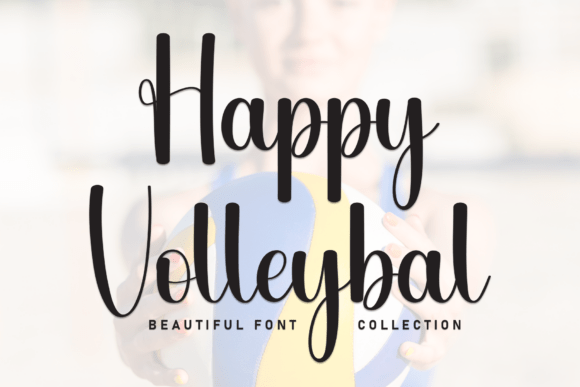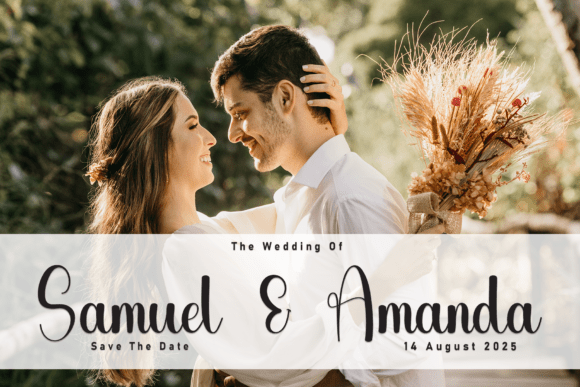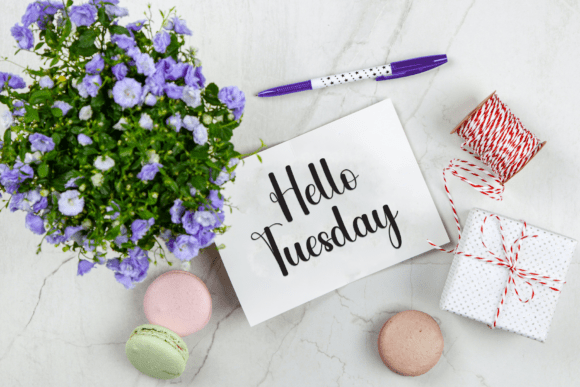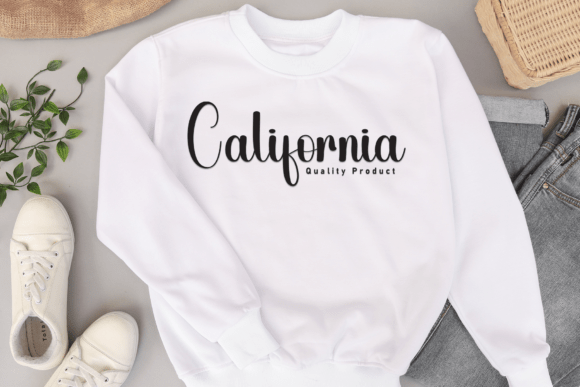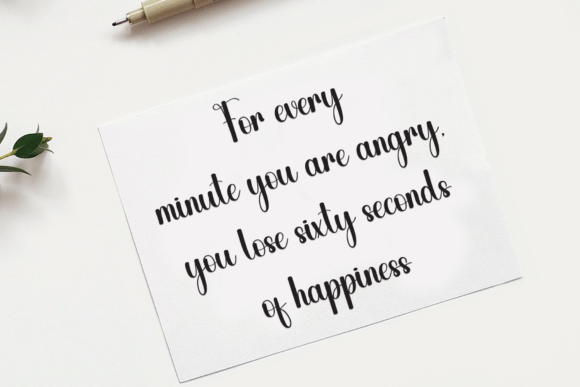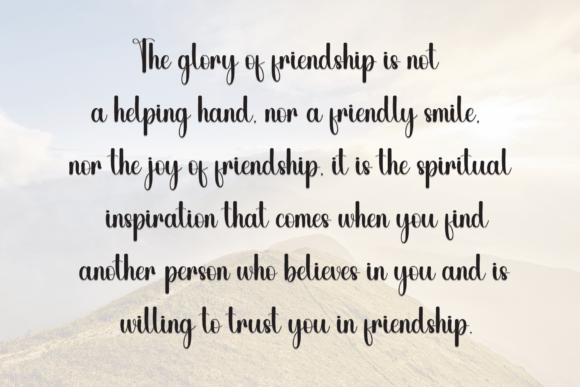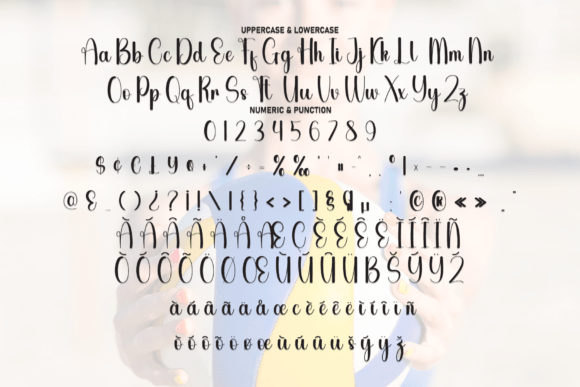
The Secret to Crafting Whimsical Designs
Have you ever stared at a blank page, trying to come up with the perfect phrase to express your love and gratitude to someone special? Maybe it’s a wedding invitation, a birthday card, or a heartfelt letter to a dear friend. Whatever it is, you want your message to be as warm and inviting as the occasion itself.
That’s where the enchanting Happy Volleybal Font comes in – a captivating handwritten script font that’s sure to breathe life into your designs. Its genial character and romantic undertones make it the perfect addition to any creative project, whether you’re a seasoned designer or a DIY enthusiast.
As a designer, you know how challenging it can be to find the right font to convey the perfect tone. That’s why Happy Volleybal Font is a valuable asset to your design arsenal – it’s the secret weapon that can stir up a playful ambiance and leave a lasting impression on your audience.
Key Features of Happy Volleyball Font
- Font Family: Happy Volleyball Font is a unique, hand-drawn font designed specifically for sports and fun applications.
- Character Set: The font includes a wide range of characters, including uppercase and lowercase letters, numbers, and special characters, making it suitable for various text-based applications.
- Unique Characteristics: Happy Volleyball Font features a playful, energetic feel, with bold lines and vibrant colors, making it perfect for sports-related designs, such as posters, flyers, and social media graphics.
Happy Volleybal Font Review
Overall, I was excited to dive into the Happy Volleybal Font, but my experience was a mixed bag. Here’s what I liked and didn’t like about this font.
- The font’s playful and energetic vibe is perfect for sports-related designs, especially volleyball.
- The letterforms are well-crafted, with a fun and bubbly feel that’s sure to capture attention.
- The font is highly customizable, with a wide range of size and color options available.
- The font’s legibility can be a concern at smaller font sizes, making it less suitable for body text.
- The font’s design may not be as versatile as other fonts, limiting its use in non-sports-related designs.
- The font’s character set is relatively small, which may cause issues when using it for extended text.
Overall, I think the Happy Volleybal Font is a great choice for sports-related designs, especially volleyball. While it has its limitations, it’s a fun and eye-catching font that’s sure to make a statement. Just be mindful of its limitations and use it wisely.
Happy Volleybal Font Practical Application Guide
Tips for Getting the Most Out of Happy Volleybal Font
Happy Volleybal Font is best used for playful and energetic designs, such as sports-themed graphics, kids’ party invitations, and social media graphics. To get the most out of this font, experiment with different font sizes, colors, and combinations with other fonts.
Happy Volleybal Font is commonly used in sports-themed designs, such as:
– Sports team logos and branding
– Event invitations and promotional materials
– Kids’ party invitations and decorations